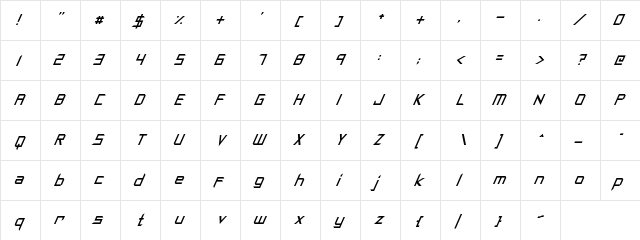
Synthetic Sharps Italic
| Designer | Darrell Flood |
Design Context for Synthetic Sharps Typeface
Synthetic Sharps offers clean, dependable letterforms without strong stylistic allegiance, making it a practical choice for designers who need flexibility. The slanted form adds forward momentum and visual energy.
Pro Tip: Try Synthetic Sharps for annotation and caption copy alongside an upright companion — the contrast in angle creates a dynamic but ordered typographic system.